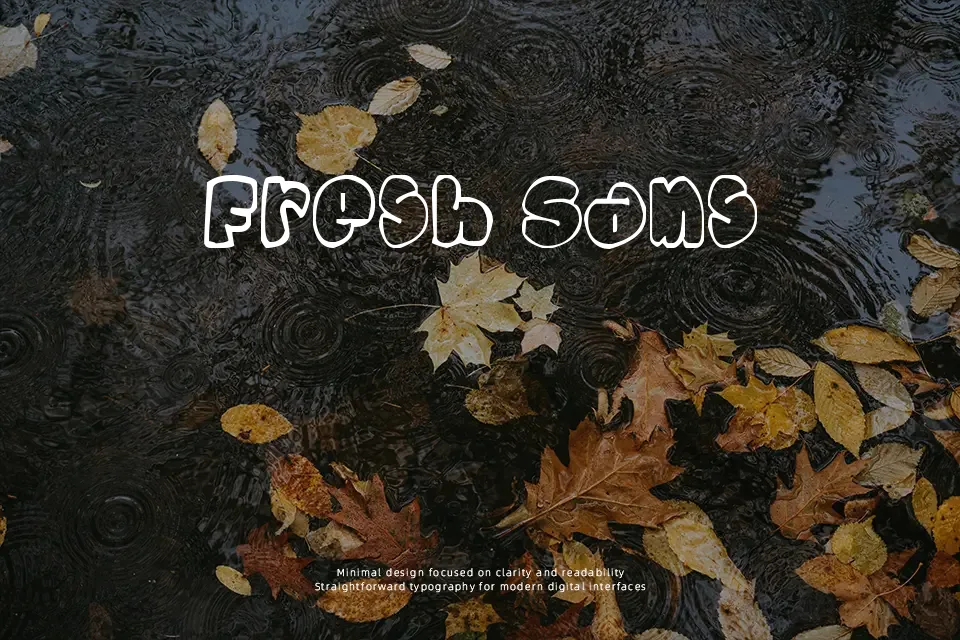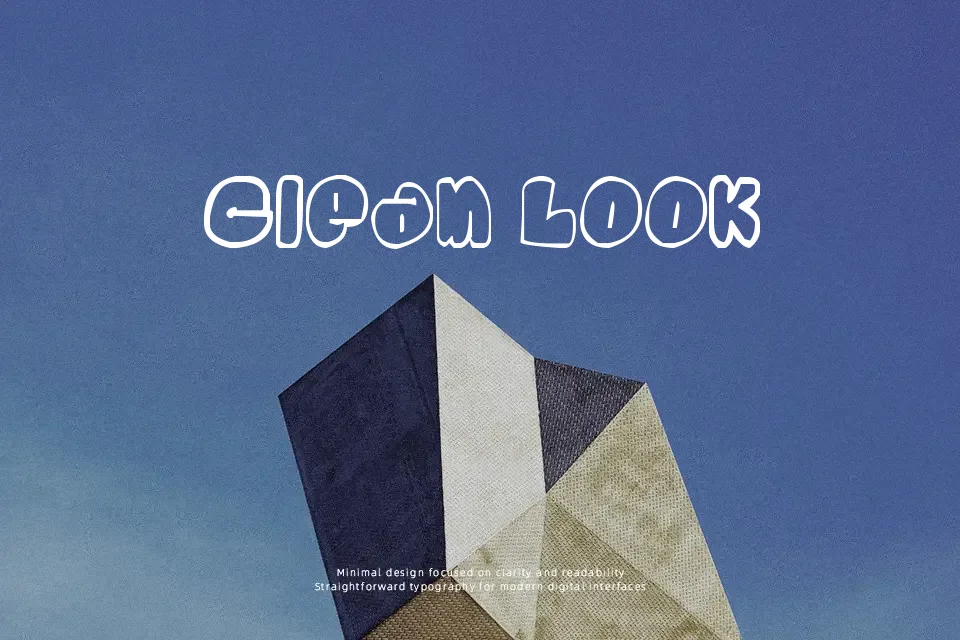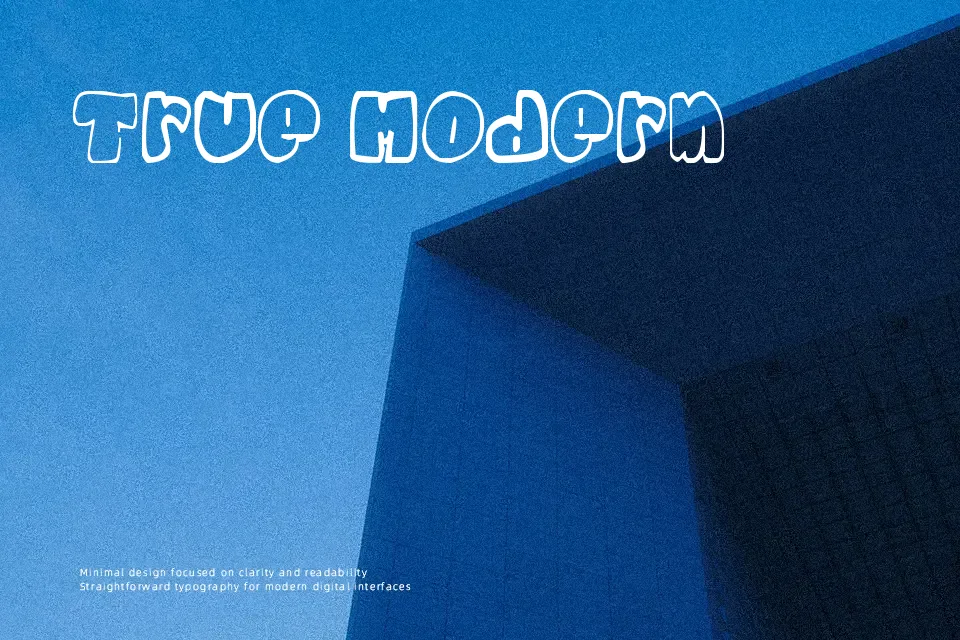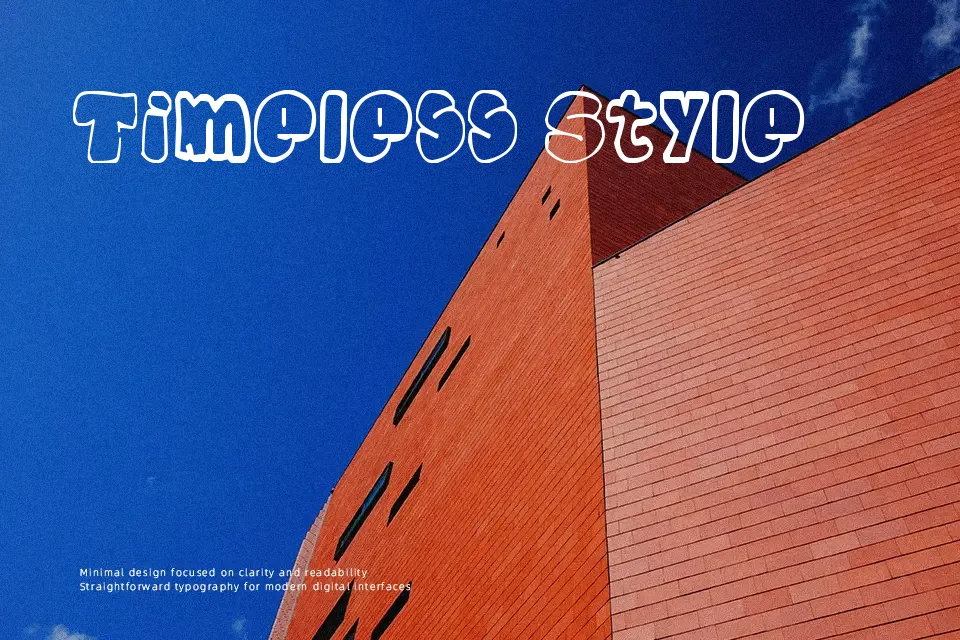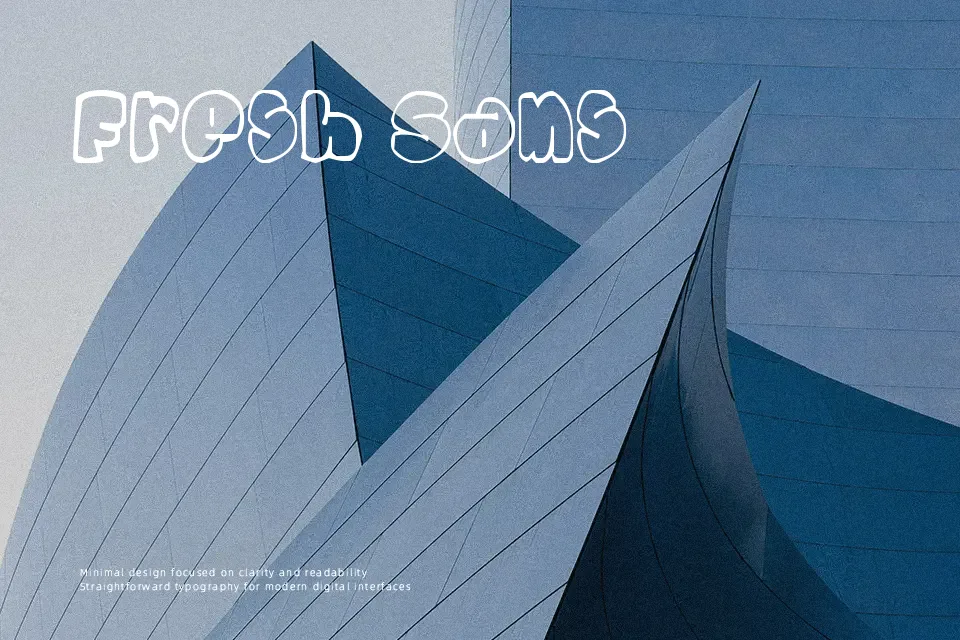
Child Font
Designed by Gustavo Lucero
Child Font features an expressive cartoon structure defined by bold, uneven strokes and rounded terminal shapes. The letterforms display relaxed proportions with varied baseline alignments that create a bouncy, casual visual rhythm across words. Spacing between characters remains relatively loose, which prevents heavy glyph collisions while preserving legibility at display scales. The typeface performs effectively in vibrant poster headers, children’s merchandise, and animated title graphics. However, the exaggerated contours and informal styling make the design unsuitable for extended reading blocks or compact interface labels. Overall, the letterforms maintain distinctive visual impact and cheerful character when presented in prominent display environments.
children’s book covers, animated title cards, toy packaging, party banner headlines
long paragraph text, corporate documents, mobile user interfaces, spreadsheet tables
Perfect for headline, kids, and logo, with a creative and cartoon style.